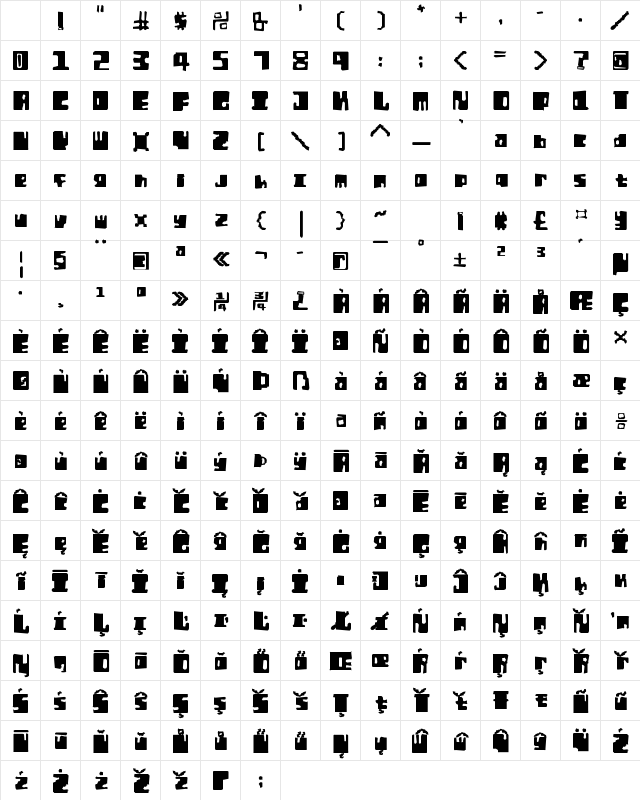
Complete Orthotopes Eroded glyph index. Displaying only characters natively supported by Orthotopes Eroded font.
Orthotopes embraces imperfection - its rough, textured character adds raw authenticity to designs that want to feel lived-in and unconventional.
Pro Tip: Use Orthotopes at larger sizes where the texture and irregularity of each letterform can be clearly seen - it loses its character at small sizes.